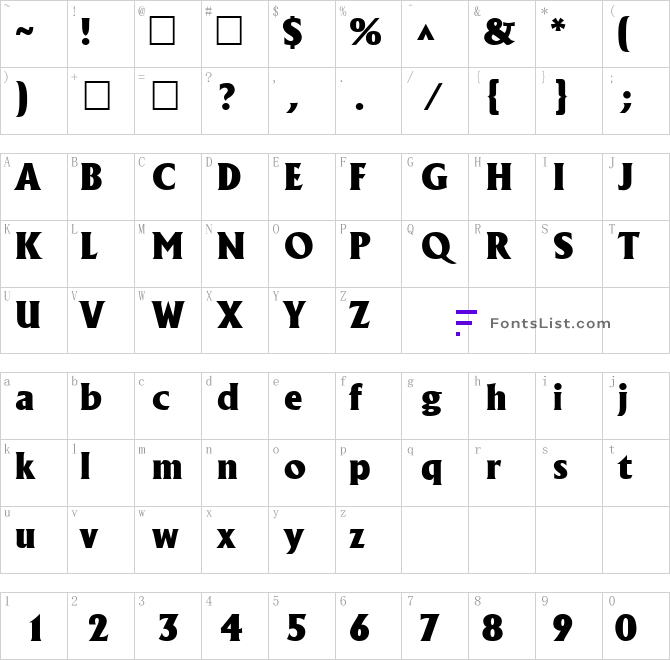
- Font Name:Anthony
Anthony-Regular.ttf is a very beautiful artistic font, Anthony-Regular.ttf is widely used in the design and printing of various books and pictures,Anthony-Regular.ttf has a strong visual impact,Anthony-Regular.ttf is a commonly used font in newspapers, magazines and books, and is used in posters, e-commerce Poster design, store design, logo design, font design and other fields.Anthony-Regular.